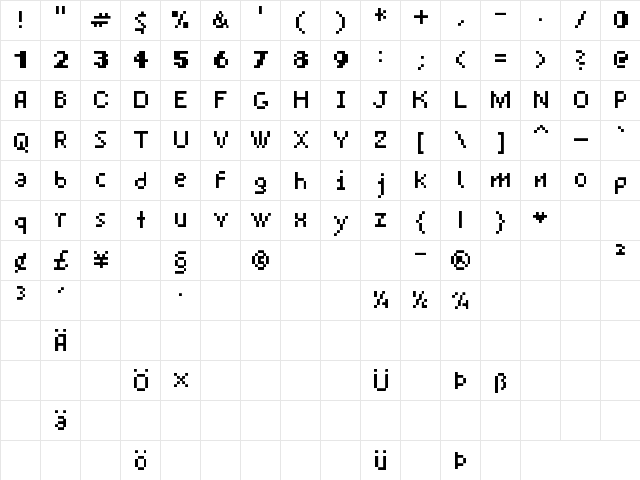
Gelb 7pt Regular
Design Context for Gelb 7pt Typeface
Gelb 7pt takes a measured approach to typography — its balanced proportions and neutral character make it a reliable workhorse for both digital and print work.
Pro Tip: Use Gelb 7pt in both headline and body roles to test its range before committing to a single application.